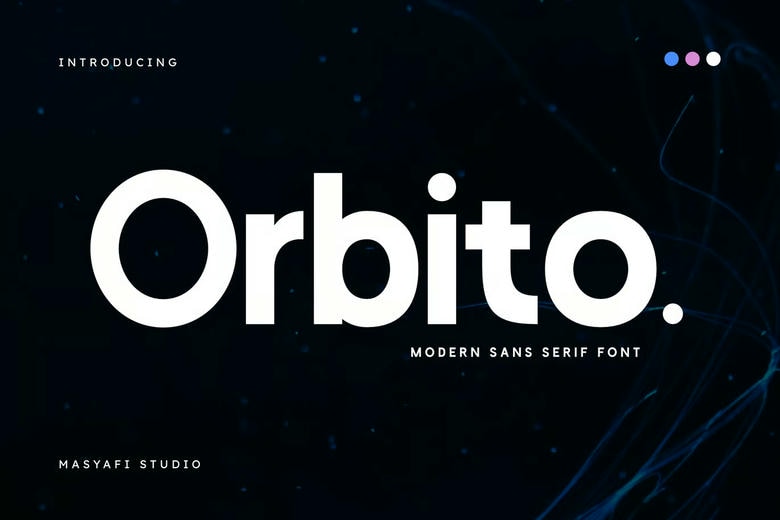
Orbito Font
Orbito is a contemporary sans-serif font that is intended to fulfill the clean, minimal, and professional design requirements. It is characterized by the equal measures, smooth geometrical forms and good readability on the digital and print employment.
The font can be used in a large variety of creative work, including brand and logo design to websites, user interfaces, presentations and editorial layout. Its natural and modern design makes it easy to fit in creative, business-oriented and technology-driven images.
Orbito is a font that offers a stylish appearance to a modern designer without losing its clarity or convenience. Orbito has a good and professional presence, both in its headlines and supporting text.
Orbito Sans Serif Font